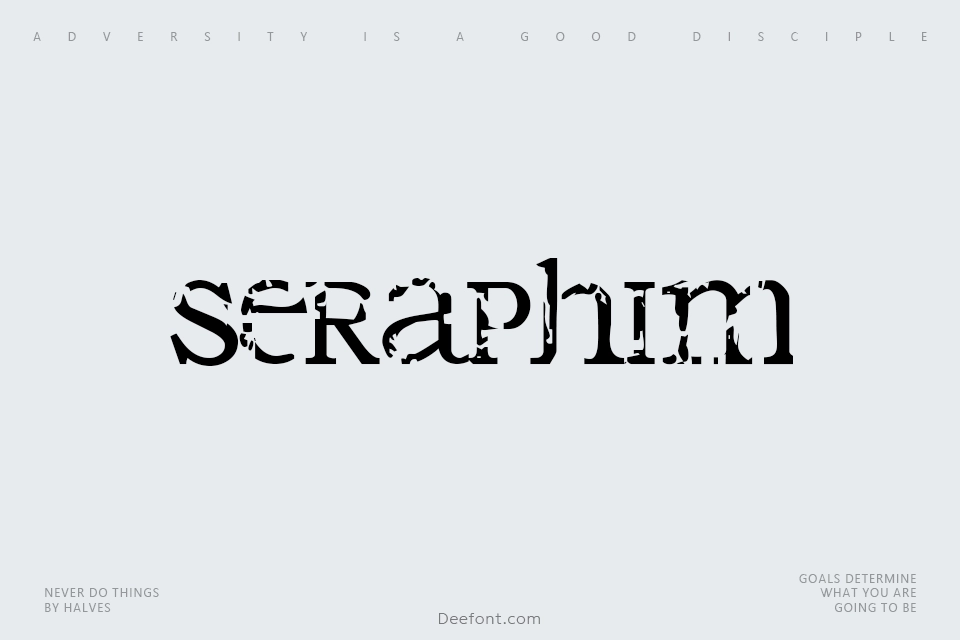
Seraphim Font
Seraphim is an elegant eroded serif typeface characterized by its distressed, vintage aesthetic with subtly bracketed serifs that lend a touch of sophistication. The font features classic letterforms with a slightly gothic quality, creating a refined vintage charm perfect for display purposes. Originally created before 2005, this decorative typeface combines the warmth of antique printing with contemporary design sensibilities, making it suitable for branding, posters, elegant packaging, and sophisticated creative projects requiring a distinctive serif presentation.